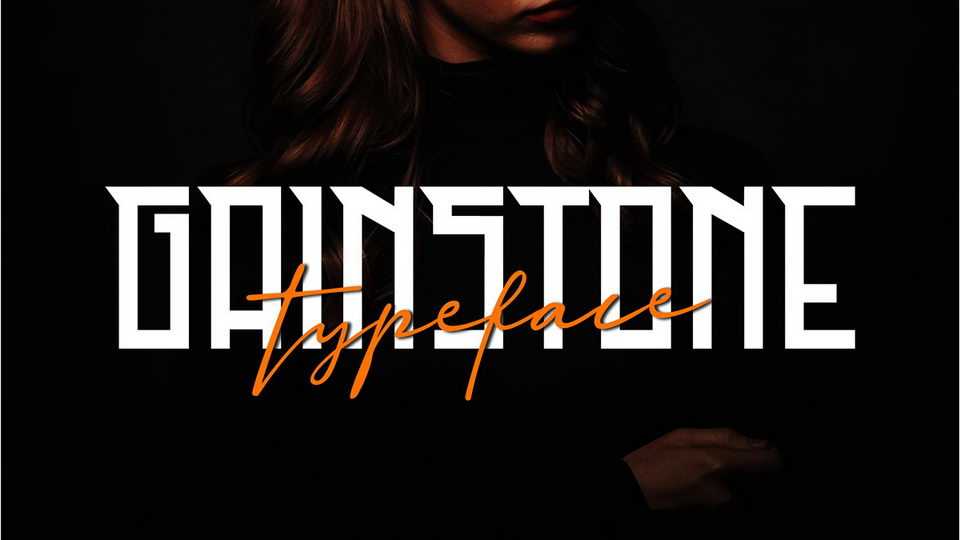
Download Gainstone font, a bold and sharp display typeface. Gainstone is perfect for posters, headlines, short messages and other projects.
Designer: Display Studio